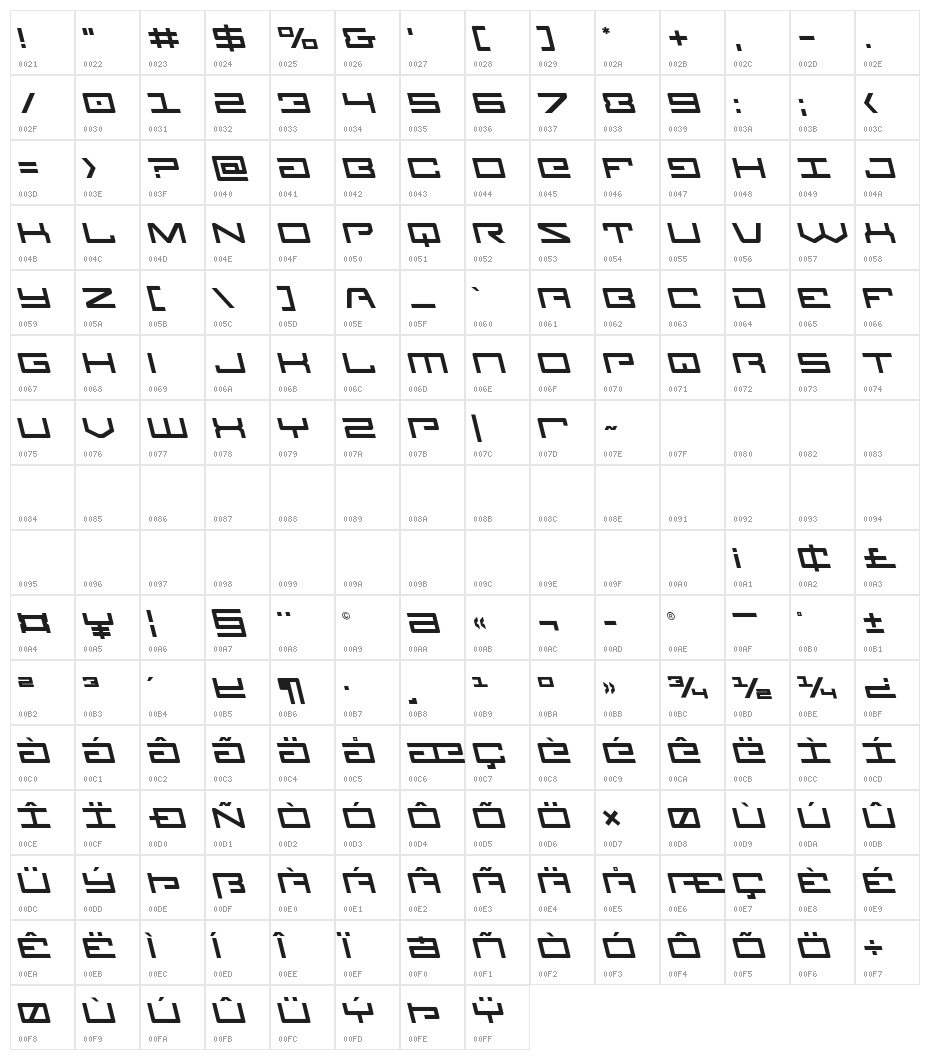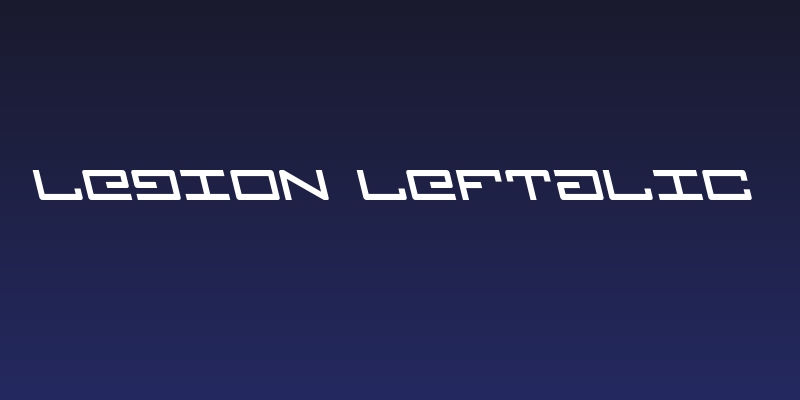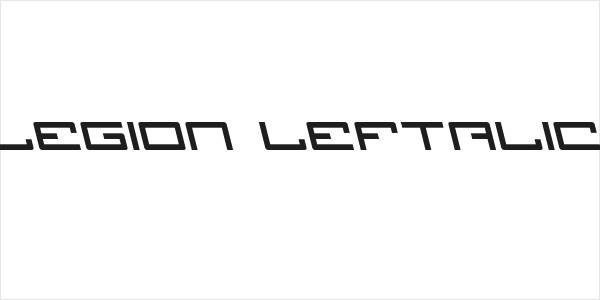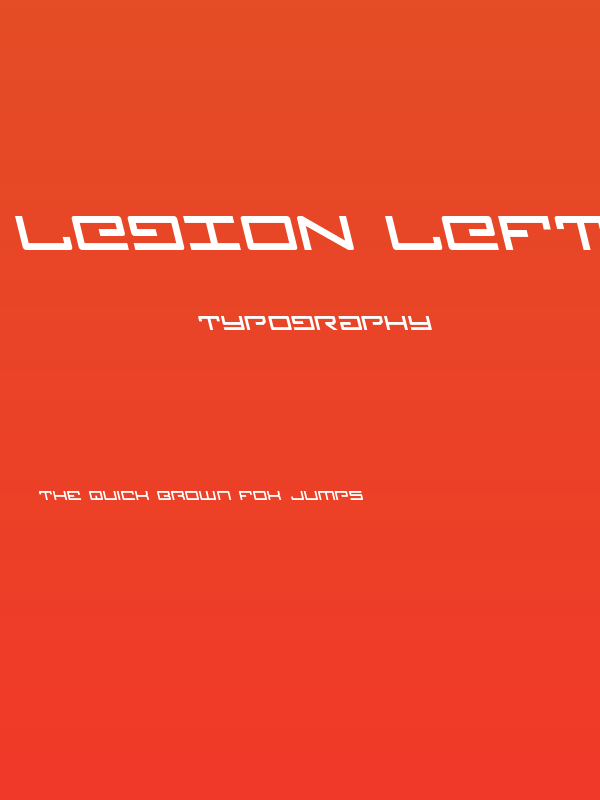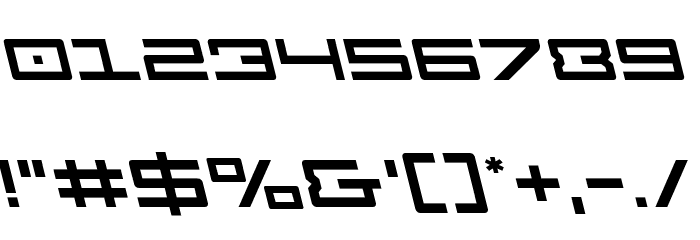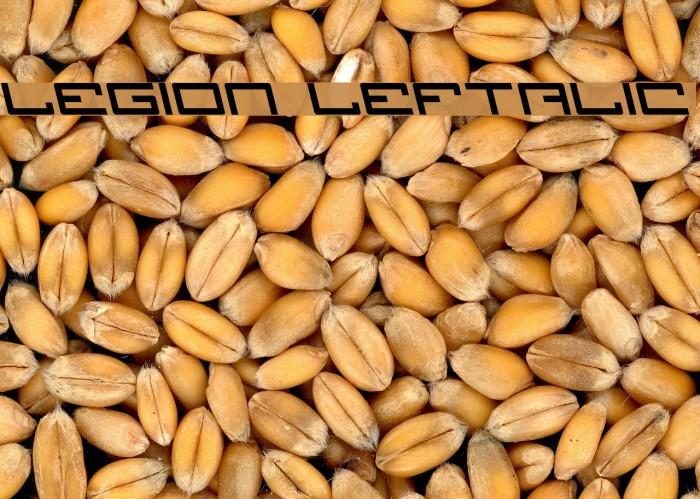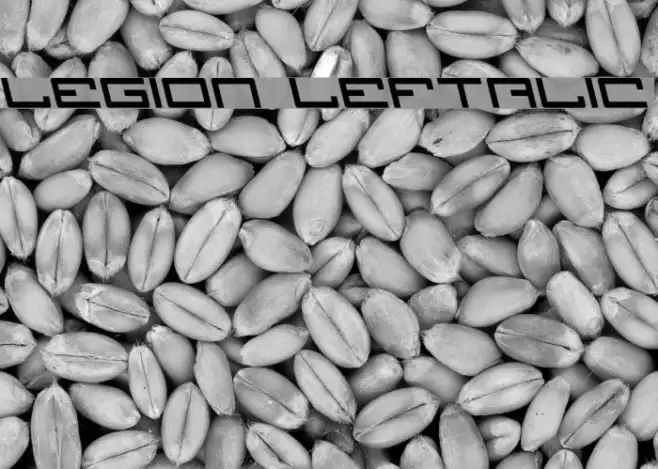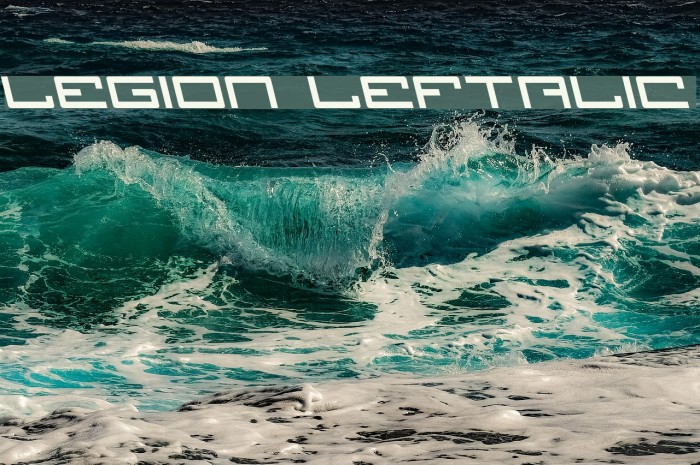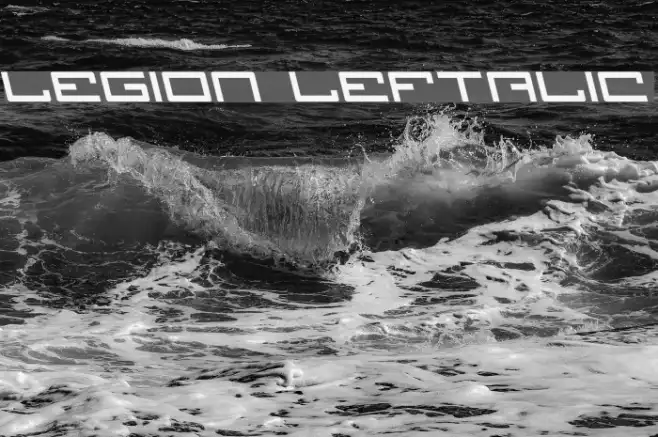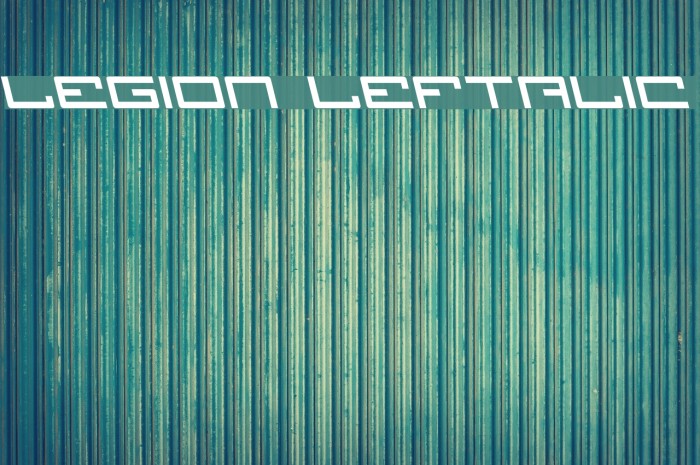
Legion Leftalic Font
Legion Leftalic Description
This font features a futuristic and angular design, characterized by its sharp edges and geometric shapes. The letters are slightly slanted, giving a dynamic and forward-moving appearance. The uppercase and lowercase letters maintain a consistent style, with a uniform height and width that creates a cohesive look. The numbers and special characters follow the same design principles, ensuring a harmonious overall appearance. The font's bold lines and distinct angles make it stand out, while the spacing between characters is tight, enhancing its compact and modern feel.
| Proposed Projects | Ideal for sci-fi themed projects, video game titles, tech branding, and modern posters. |